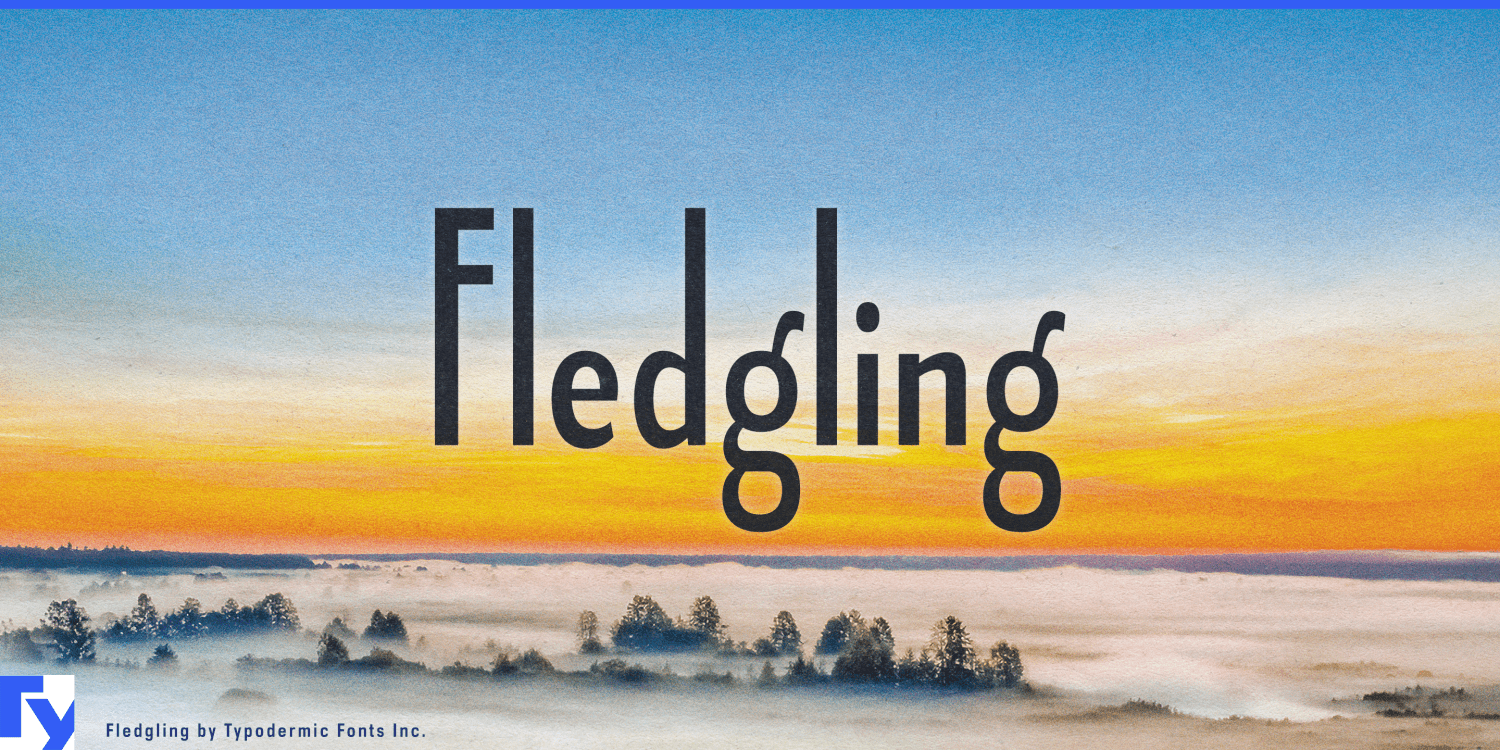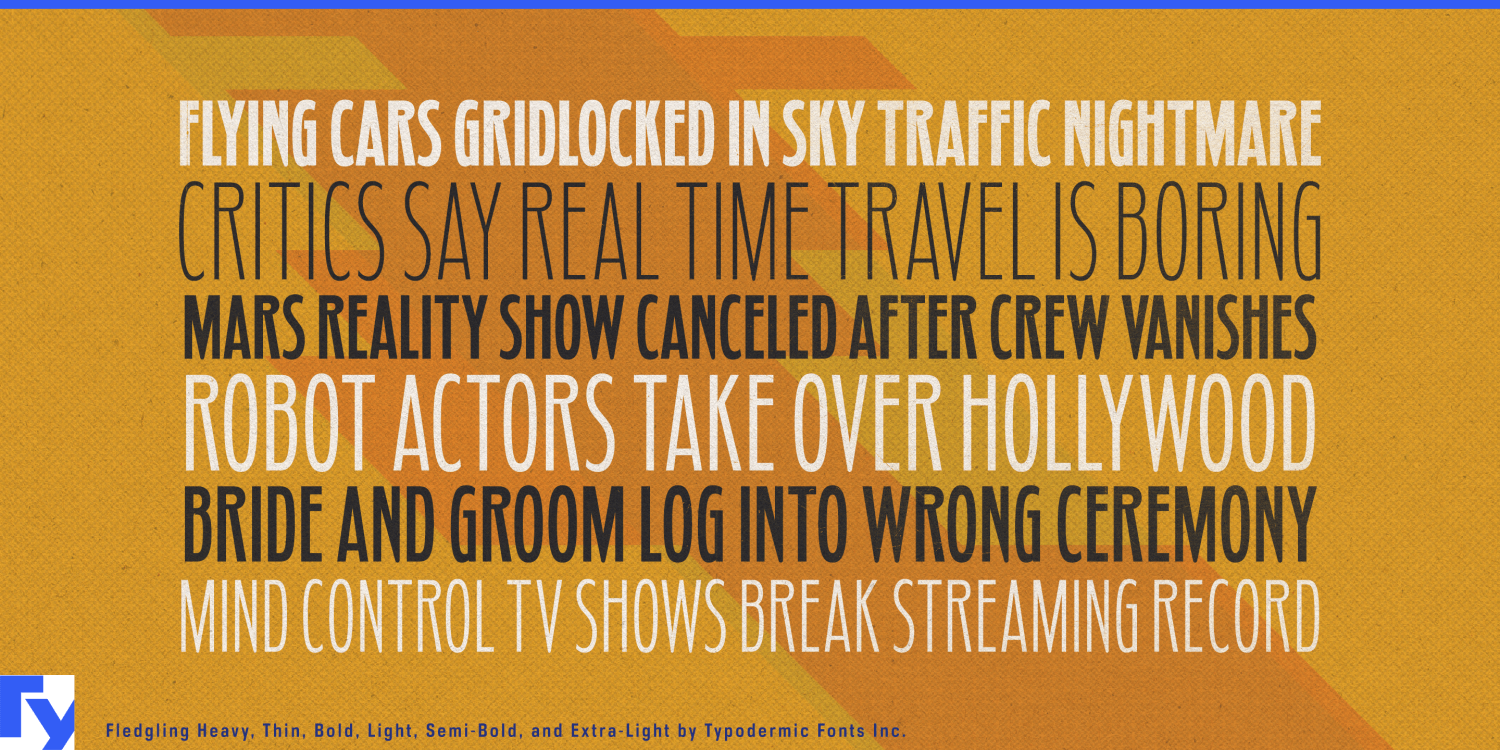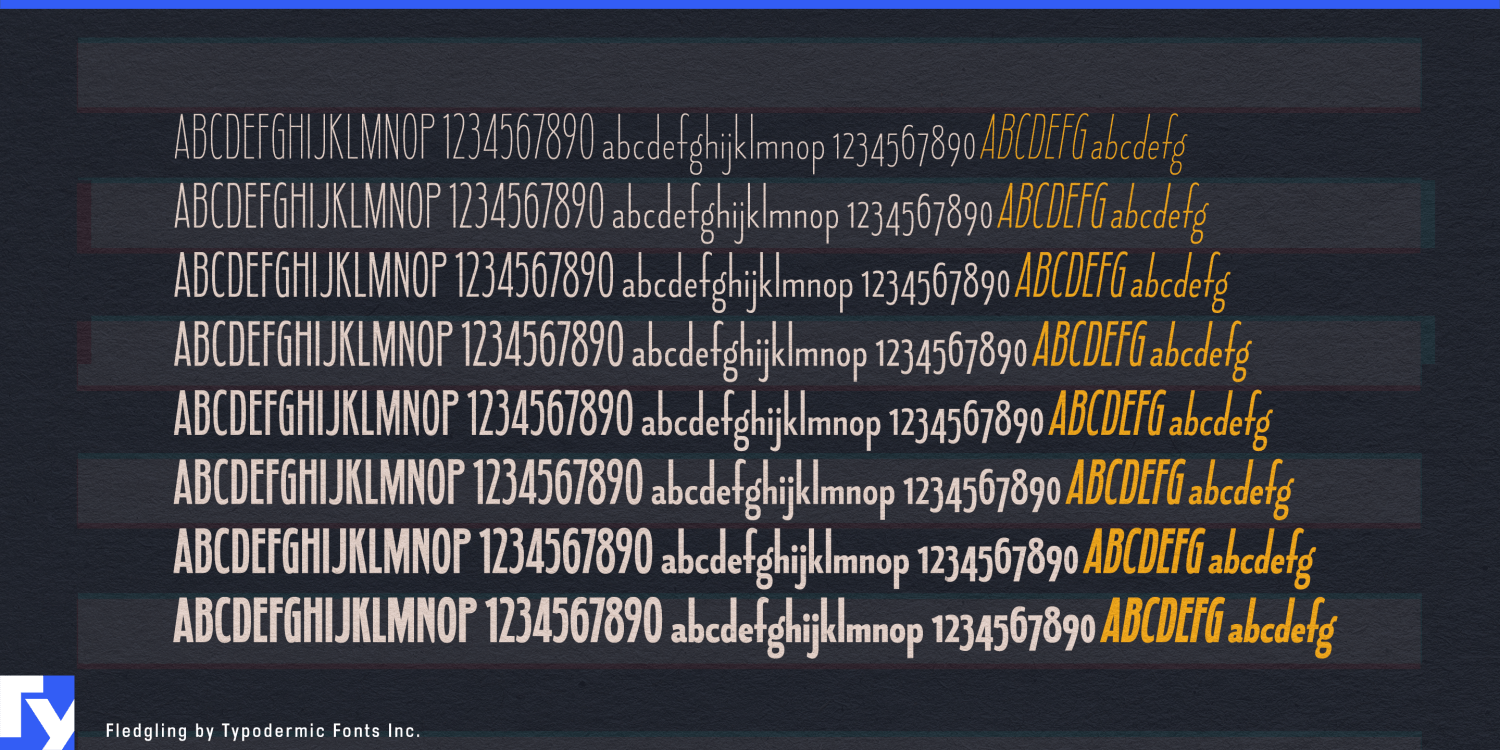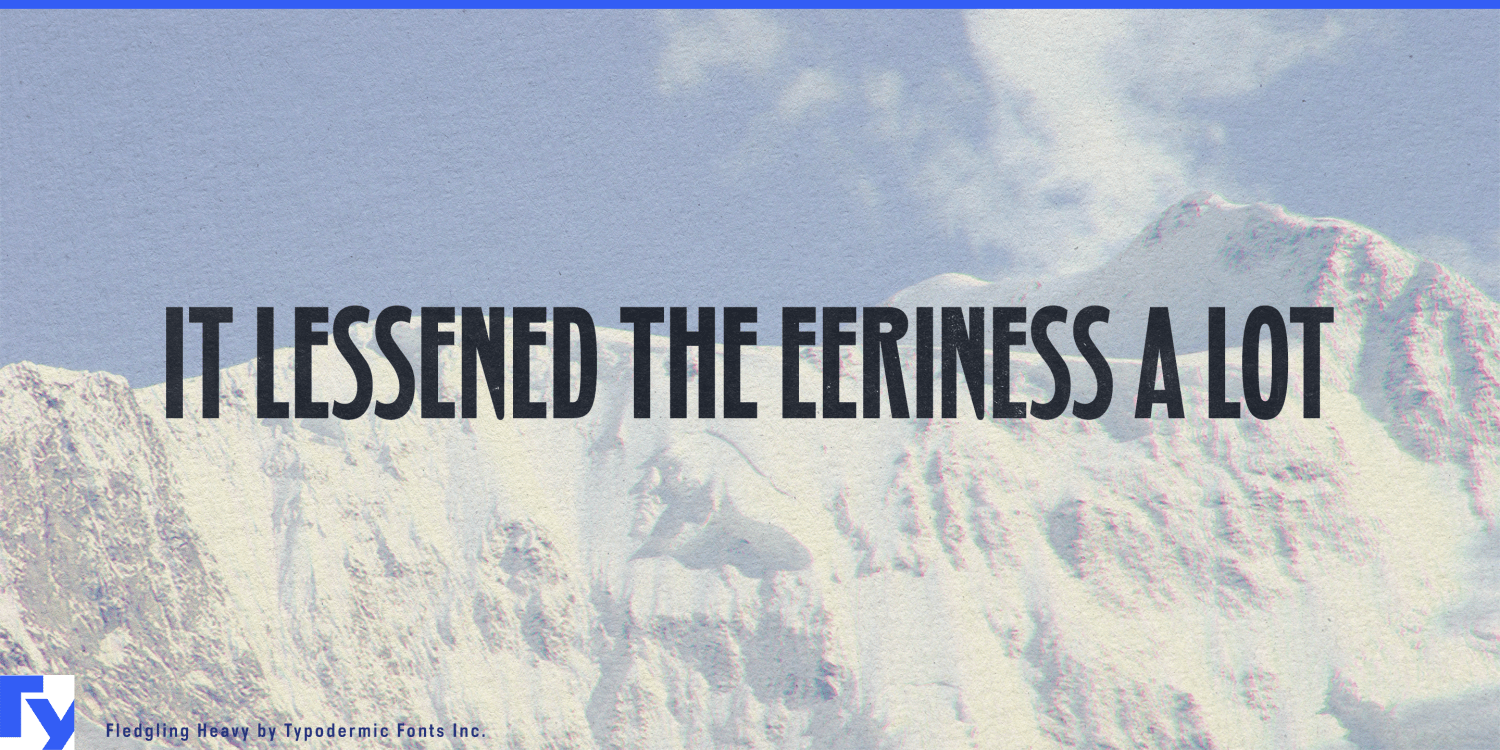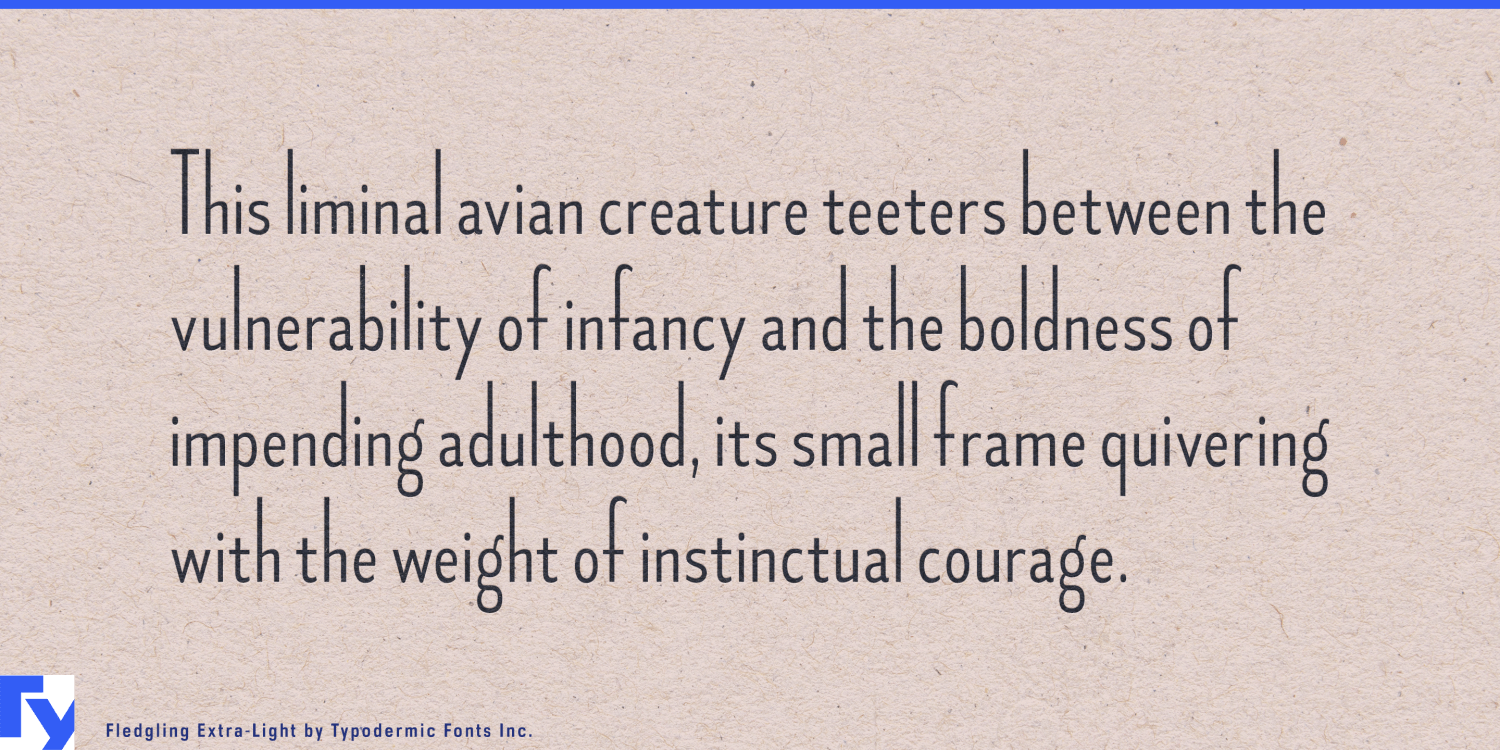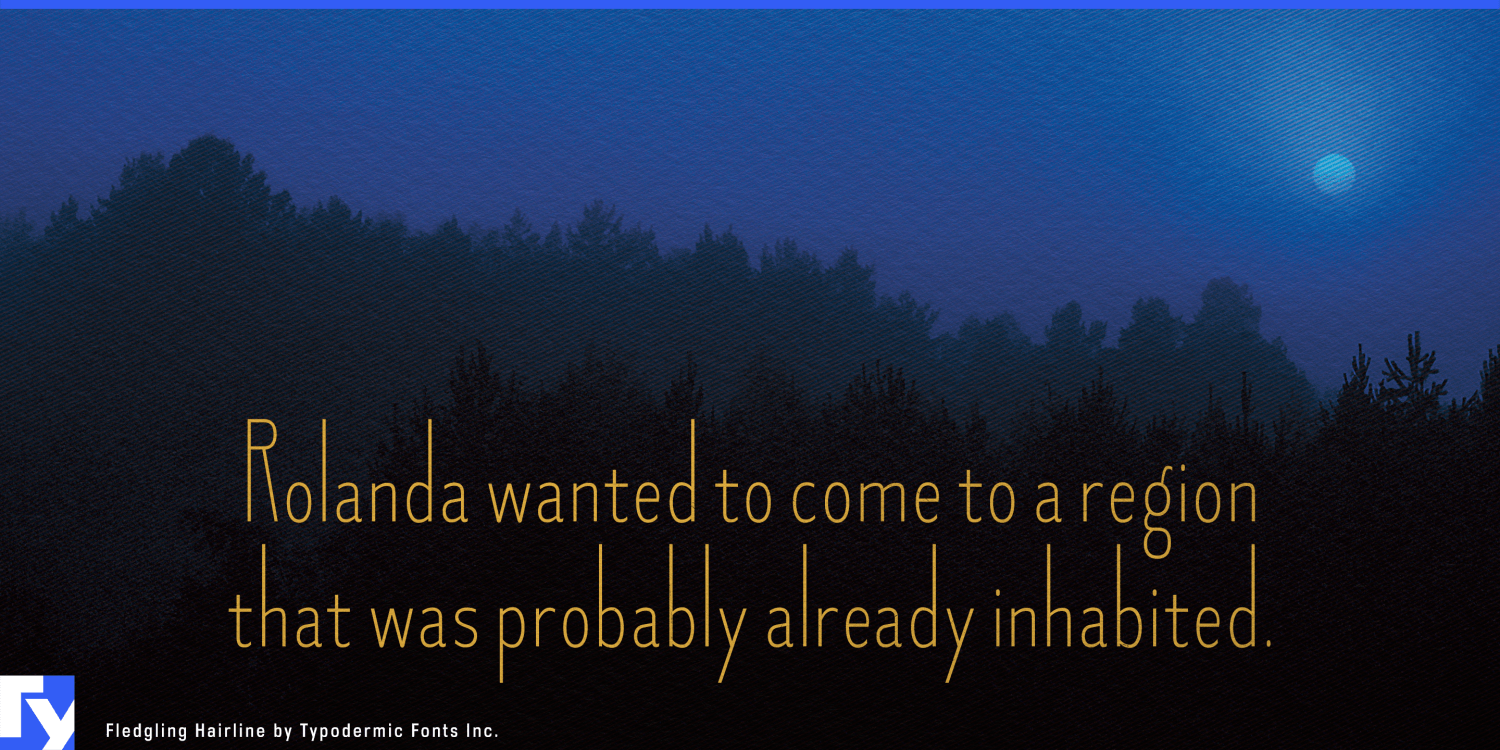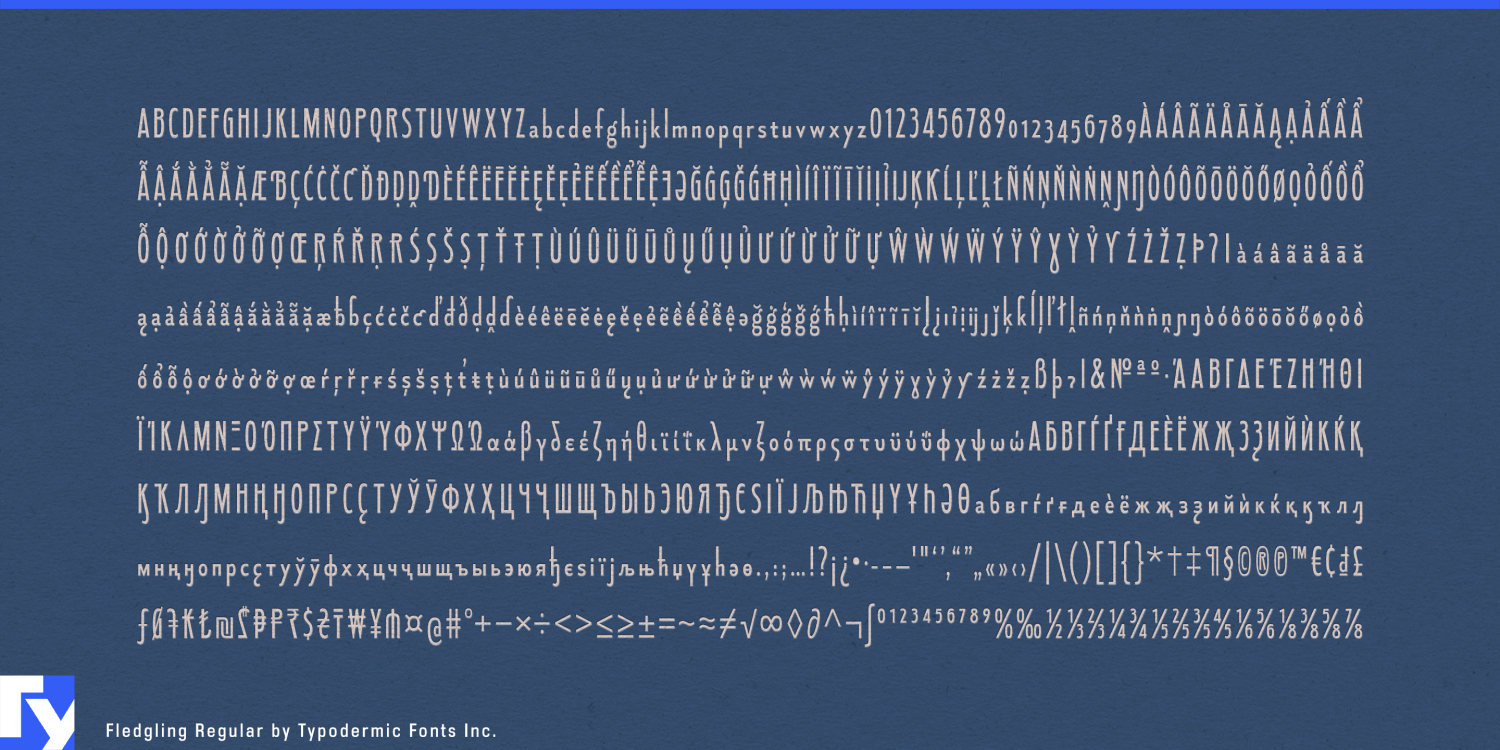
Fledgling
Luxury typography often has to fit into awkwardly narrow spaces. A restaurant name has to sit above a menu column; a fragrance name has to fit a tall bottle; two long surnames have to share an invitation without shrinking into insignificance. A conventional condensed sans can solve the width problem but leave the result feeling mechanical. Fledgling takes another approach: narrow proportions, a very low x-height and long ascenders make words feel elongated rather than squeezed.
That unusual proportion gives Fledgling a particularly elegant mixed-case silhouette. The lowercase stays small while ascenders rise dramatically above it, creating strong vertical movement without consuming much horizontal space. Hairline and Thin can become exceptionally delicate; heavier styles add presence without losing the same tall, narrow structure.
Fine dining and intimate hospitality make especially good use of those proportions. Hotel restaurants, wine bars, champagne bars, cocktail lounges and afternoon-tea venues need typography for restaurant names, tasting-menu sections, chef names, wine headings and private-dining events. Fledgling can keep long names prominent in narrow menu layouts while leaving room for photography, prices and supporting text. A quieter companion face can handle descriptions and small print while Fledgling provides the distinctive display hierarchy.
The same qualities work well inside hotels and resorts. Spa treatment names, suite names, boutique identities, restaurant graphics and afternoon-tea cards often need refinement without the spectacle of a large resort logo. Fledgling feels more intimate: the name on the treatment menu, the lettering on the restaurant window or the suite title printed on a card waiting in the room.
Fragrance and beauty products give its narrowness a physical purpose. Tall perfume bottles, skincare cartons, salon products and beauty gift sets frequently offer very little horizontal room for a product or collection name. Fledgling can remain large and graceful within those spaces, particularly in the lighter weights. Haircare collections and salon identities can carry the same elongated typography from bottles and boxes into campaign headings and window graphics.
Fashion benefits from the same vertical proportions. Designer names, collection titles, millinery labels, eyewear brands and accessory lines can use Fledgling in lookbooks, garment tags, invitations and boutique windows. Its low lowercase and long ascenders create an elegant, slightly unusual rhythm without relying on decorative flourishes or conventional high-fashion Didones.
Formal events provide another useful setting. Wedding invitations, reception menus, ceremony programs and venue cards often have long names competing for limited width. Fledgling gives those names height and presence without forcing them into all caps or compressing them until they feel utilitarian.
Fledgling spans eight weights with matching italics, allowing the same narrow construction to move from extremely fine display lettering to considerably stronger headlines. Its small x-height makes it a display family rather than a choice for tiny print or sustained reading; names, headings and short prominent lines give those unusual proportions enough room to work.
Fledgling is for typography that needs to be narrow without looking compressed. A restaurant name, perfume bottle, fashion label or wedding card can occupy remarkably little width while still looking tall, deliberate and elegant.